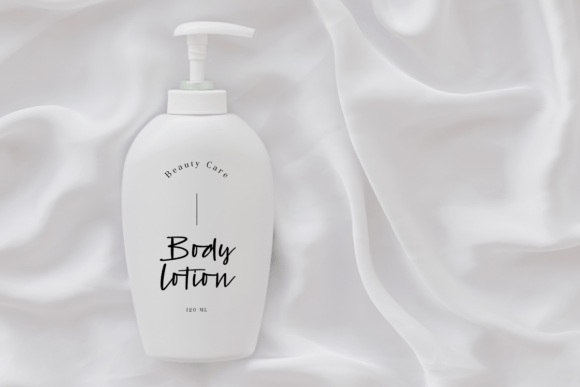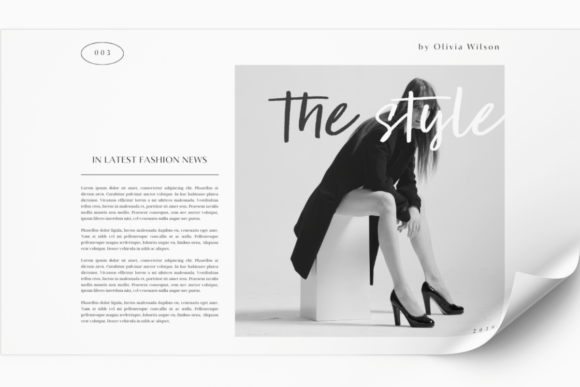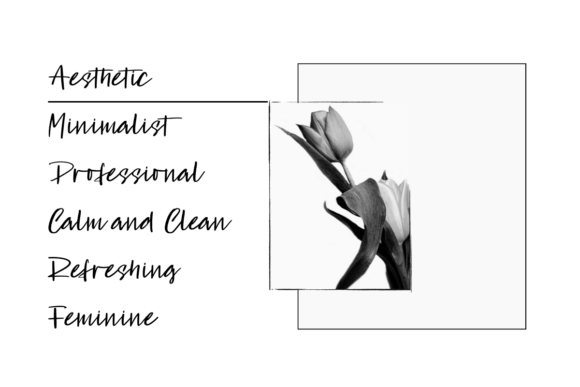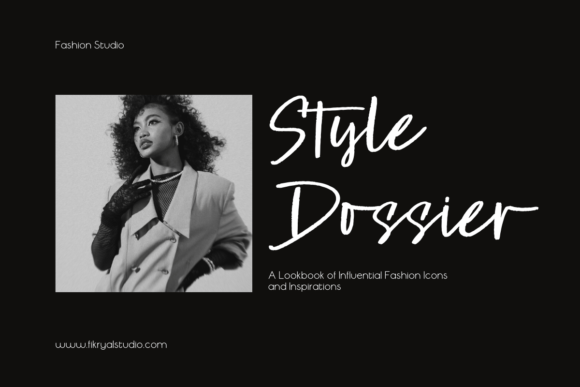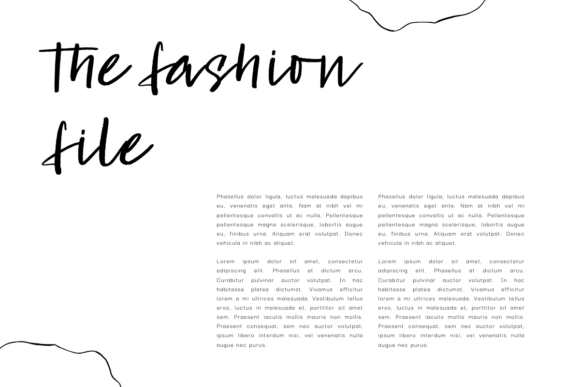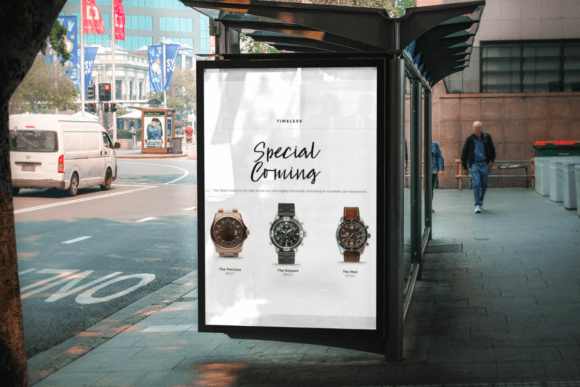
Introducing Beloved Dreams Font: Elevate Your Creative Projects with Elegance
In the world of typography, few fonts manage to capture the essence of elegance and modernity as effectively as Beloved Dreams. This beautiful script font is designed with a natural handwritten feel, making it an ideal choice for a wide range of creative projects. Whether you’re crafting invitations, designing greeting cards, or developing a brand identity, Beloved Dreams offers the perfect blend of classic beauty and contemporary flair.
The Design Philosophy Behind Beloved Dreams
Beloved Dreams is more than just a font; it’s a design statement. Its elegant script style is meticulously crafted to bring a touch of sophistication to any project. The natural handwritten feel of the font adds a personal and intimate touch, making it suitable for projects that require a more emotional and connective approach. The design combines the timeless beauty of traditional script fonts with the freshness of modern typography, resulting in a versatile font that can be used across various platforms and applications.
One of the standout features of Beloved Dreams is its versatility. This font is perfect for:
- Invitations: Add a touch of elegance to your wedding invitations, birthday parties, or any special event with Beloved Dreams.
- Greeting Cards: Create beautiful and heartfelt greeting cards for any occasion, from holidays to thank you notes.
- Branding: Elevate your brand identity with a font that exudes sophistication and modernity. Beloved Dreams is particularly suitable for cosmetic brands, fashion labels, and lifestyle businesses looking for a distinctive voice.
Why Choose Beloved Dreams?
There are several reasons why Beloved Dreams stands out from the crowd:
- High-Detail Rendering: Each character in Beloved Dreams is rendered in high detail, ensuring optimal readability and a captivating visual appeal.
- Classic yet Modern: The font strikes the perfect balance between classic elegance and modern simplicity, making it adaptable to a wide range of design contexts.
- Natural Handwritten Feel: The font’s natural handwritten feel adds a personal touch to your designs, making them more relatable and engaging.
Tips for Using Beloved Dreams Effectively
To get the most out of Beloved Dreams, consider the following tips:
- Pair with Complementary Fonts: For maximum impact, pair Beloved Dreams with clean, sans-serif fonts to create a beautiful contrast.
- Experiment with Colors: Don’t be afraid to experiment with different colors. Beloved Dreams looks stunning in both bright and pastel colors.
- Use for Headlines and Body Text: While Beloved Dreams is elegant enough for headlines, its readability makes it suitable for body text as well, especially for short paragraphs or quotes.
Beloved Dreams is more than just a font; it’s a design tool that can elevate your creative projects to new heights. Its elegant script style, combined with a natural handwritten feel, makes it perfect for a variety of applications, from invitations and greeting cards to branding and advertising. With its high-detail rendering and versatile design, Beloved Dreams is sure to become a favorite in your typography arsenal. So why wait? Explore the possibilities with Beloved Dreams and bring your creative visions to life with elegance and sophistication.
Discover the beauty of Beloved Dreams today and transform your designs with a touch of elegance and modernity.